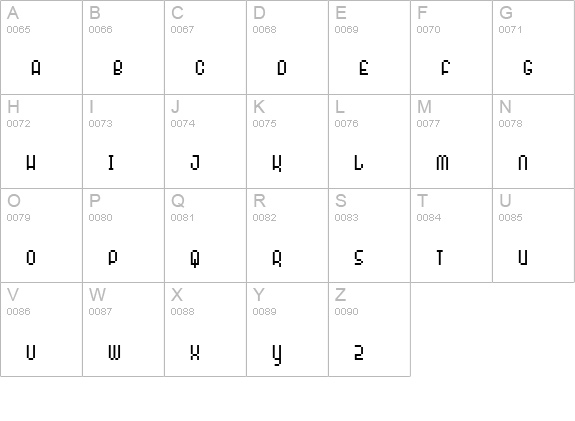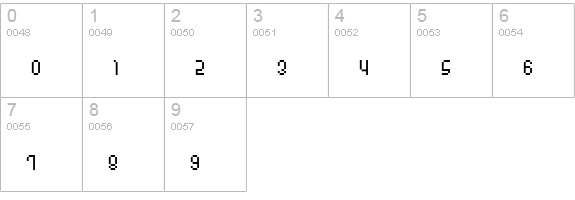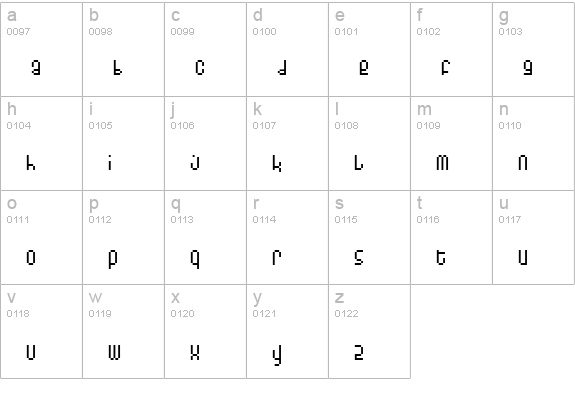
Monophonic Font Details
Monophonic font is a sleek and modern typeface that exudes elegance and simplicity. With its clean lines and sharp edges, this font is perfect for creating a sophisticated and contemporary look in your designs. Monophonic font offers a single-line style that adds a unique touch to any project, making it stand out from the crowd. Best of all, Monophonic font is completely free to download at FontsMarket.com. Take advantage of this incredible offer and enhance your designs with the timeless charm of Monophonic font today. Whether you're working on a branding project, logo design, or any other creative endeavor, this font is sure to elevate your work to new heights. Download Monophonic font now and see the difference it can make in your designs!